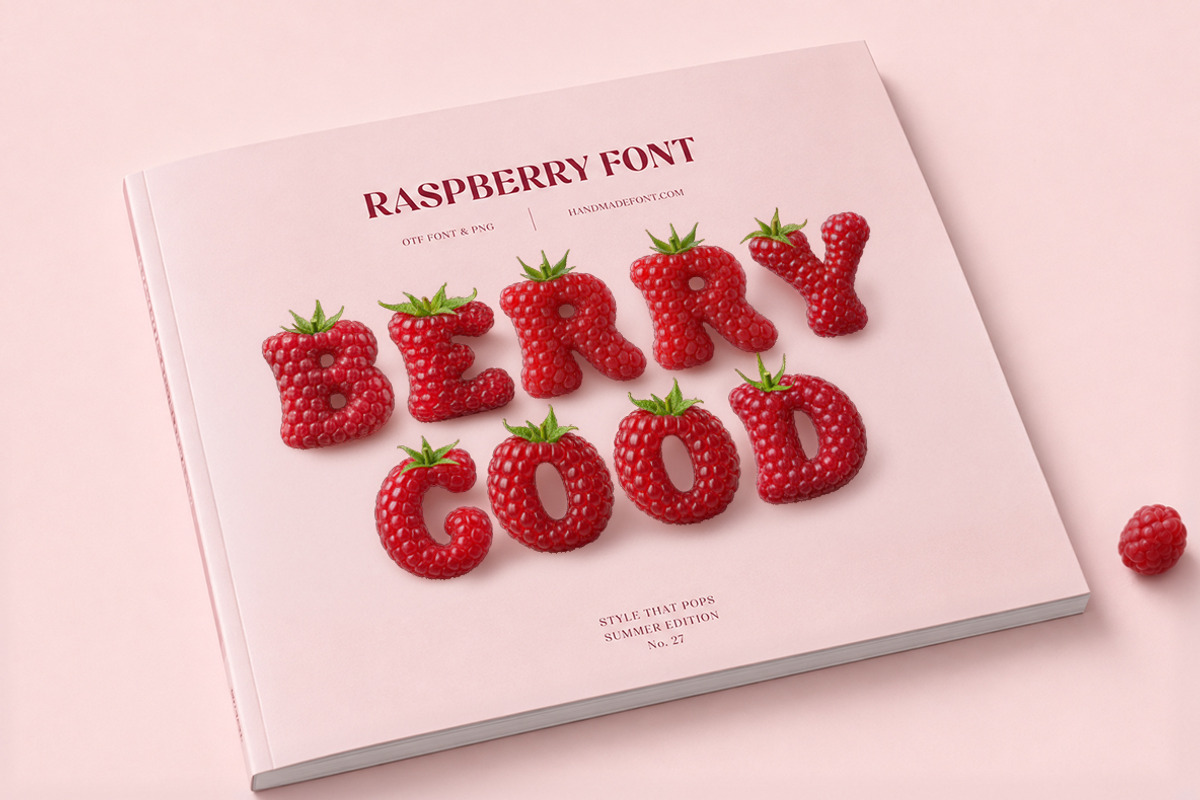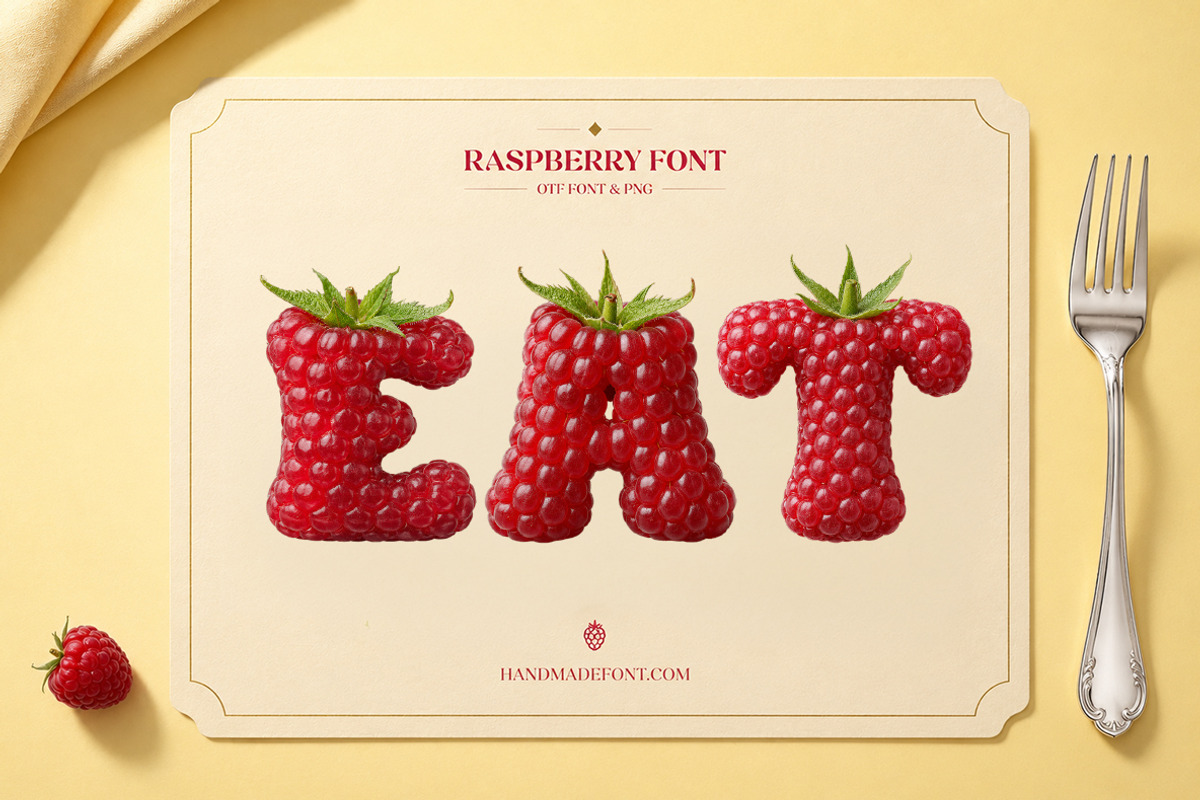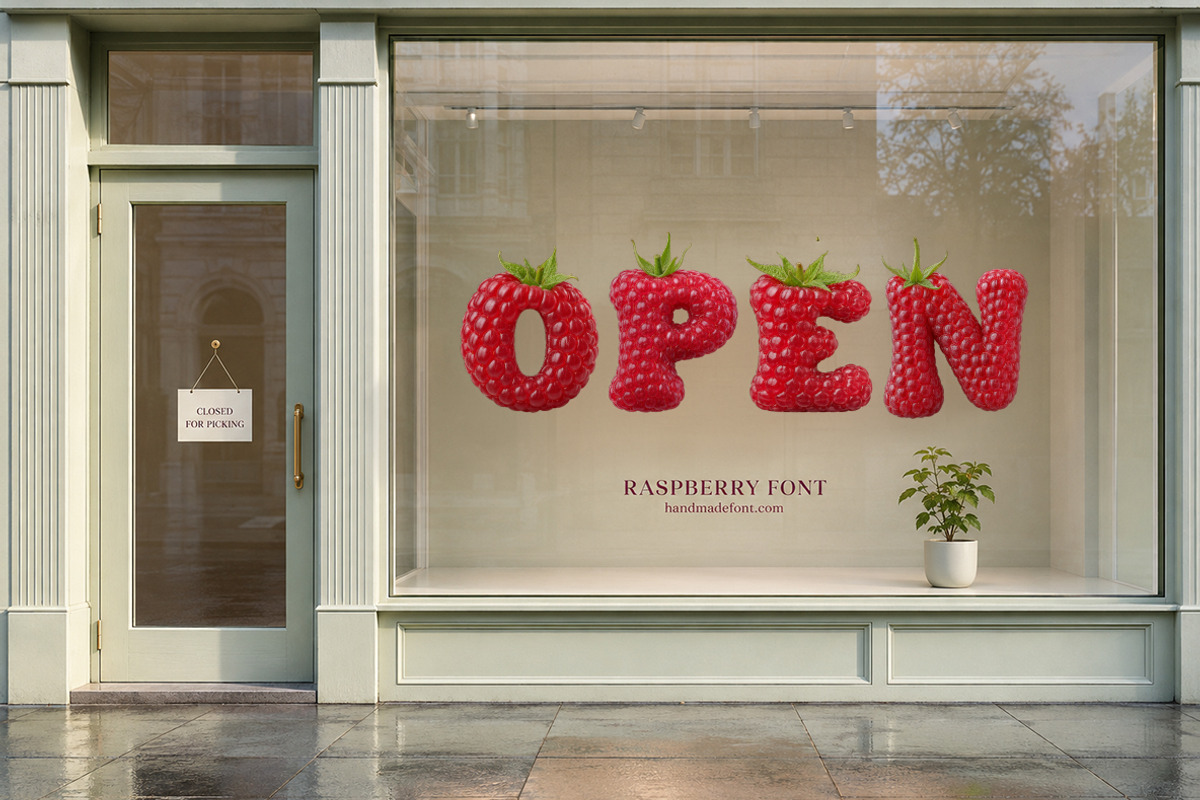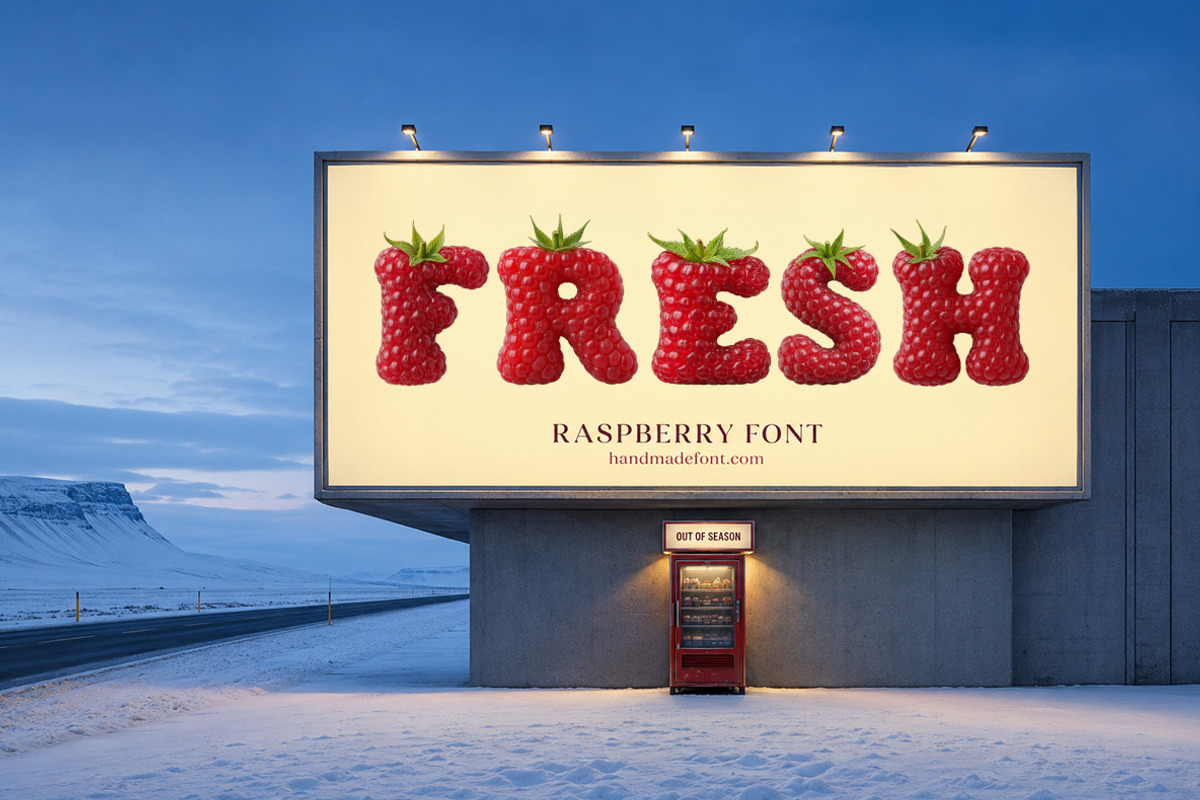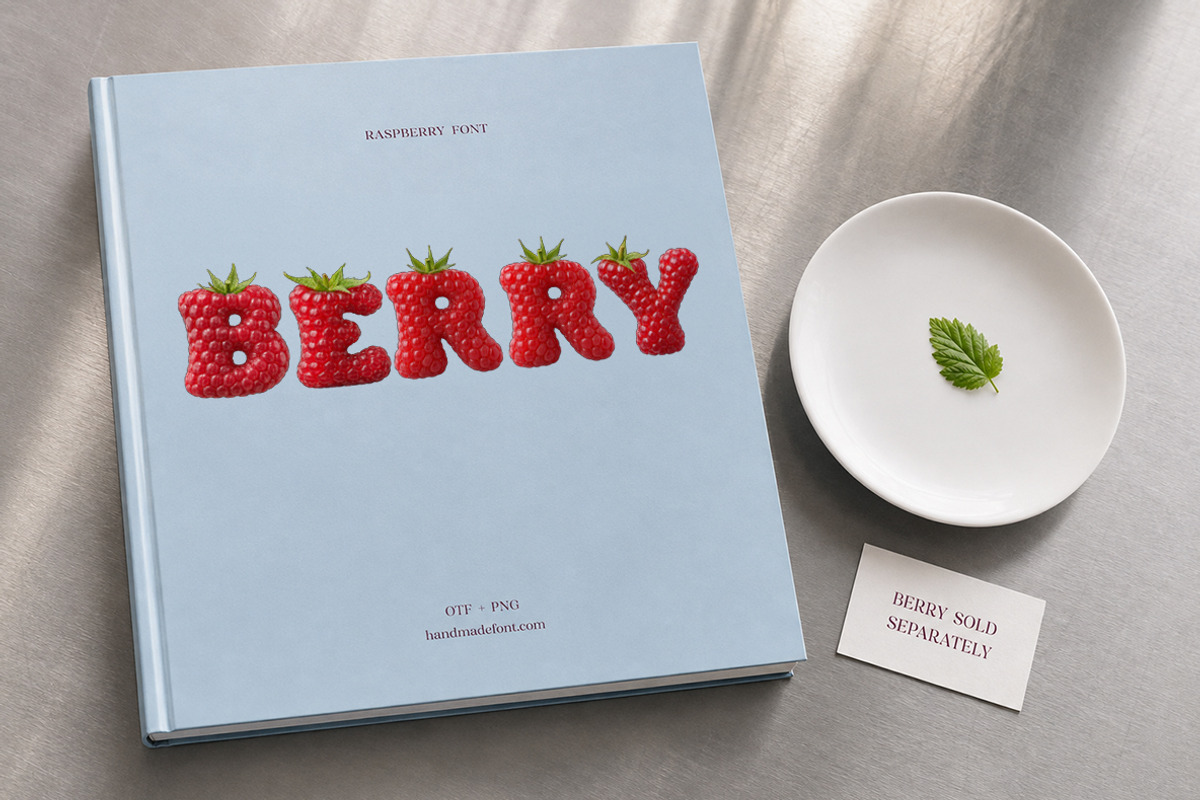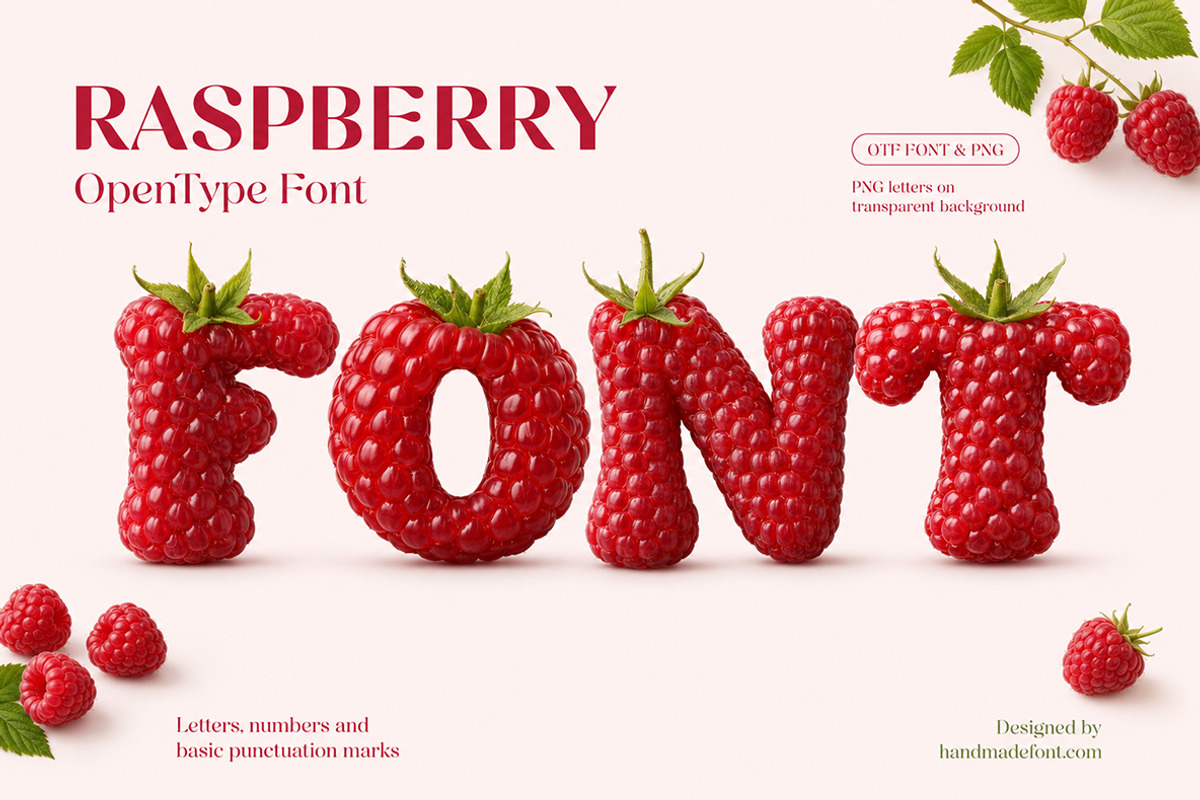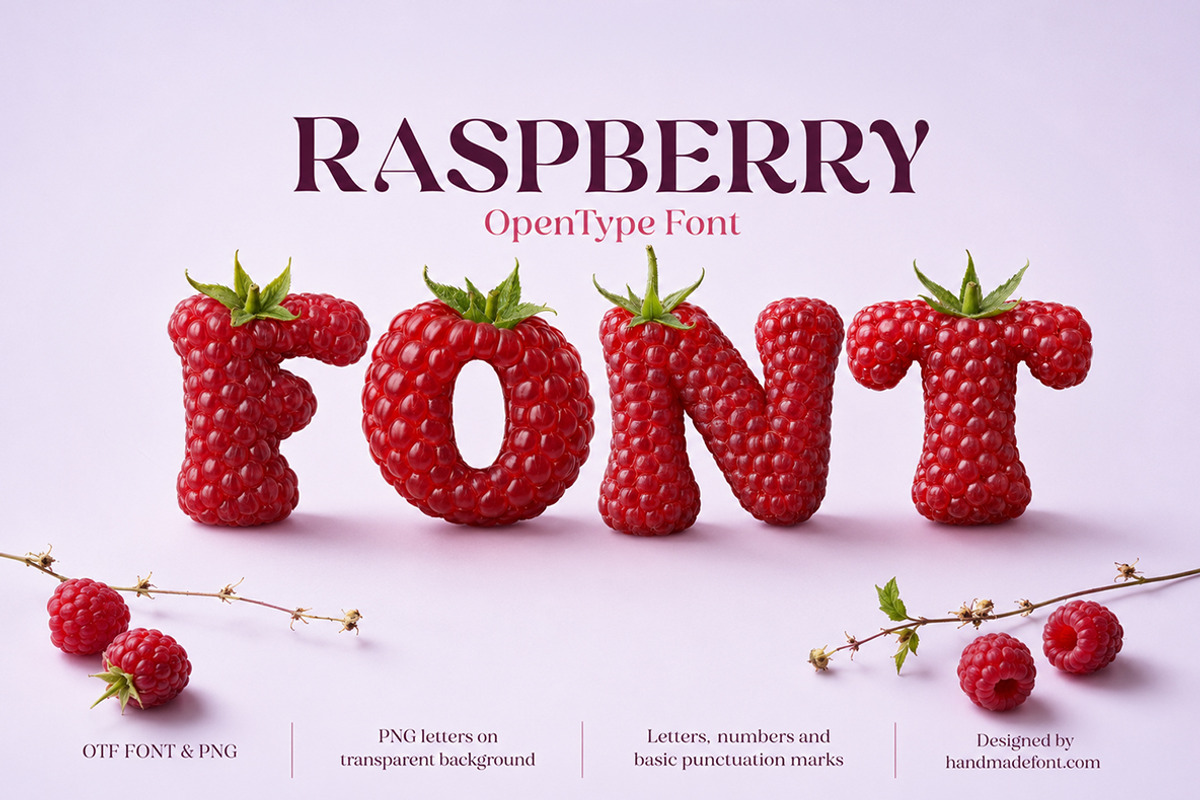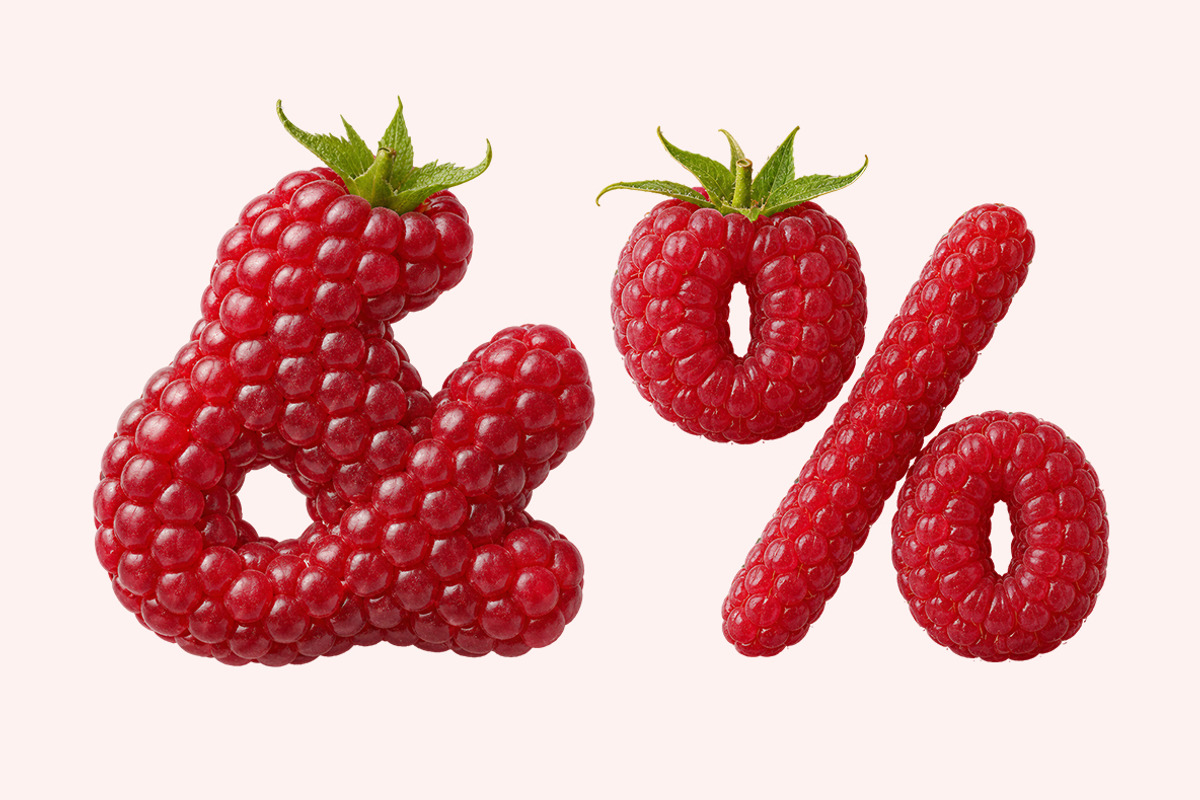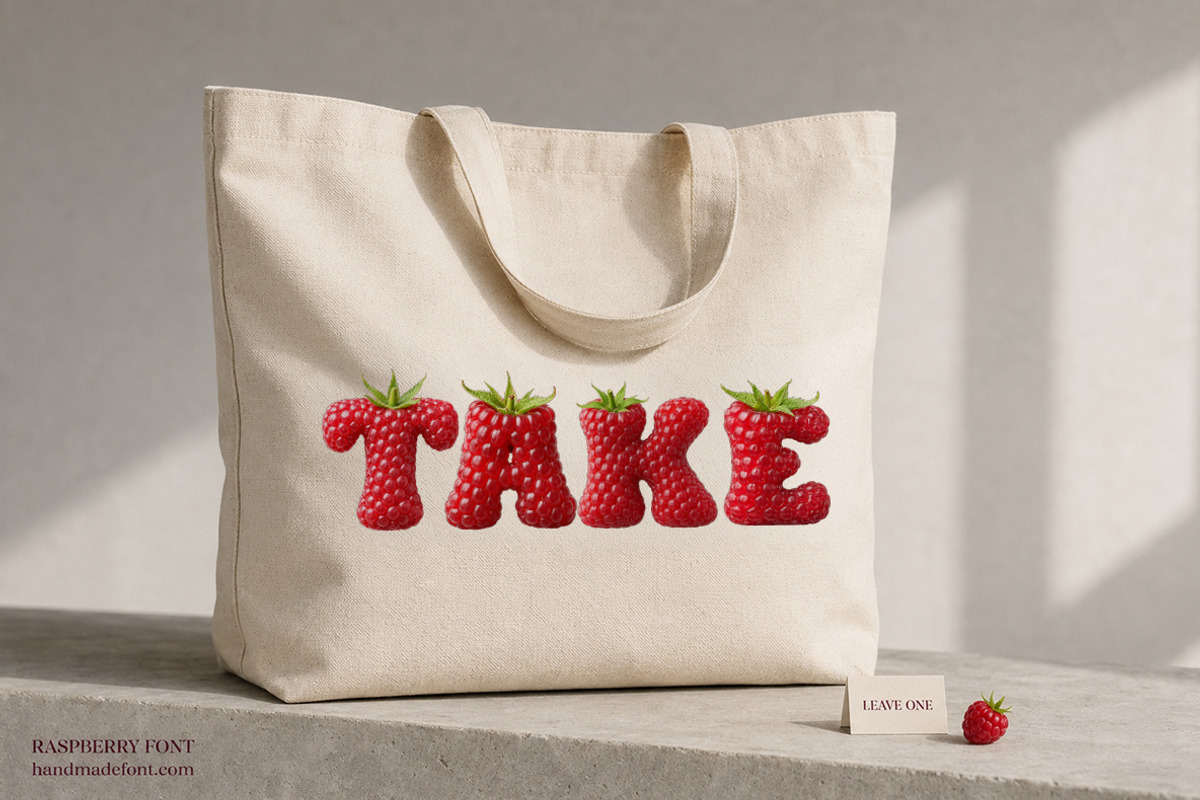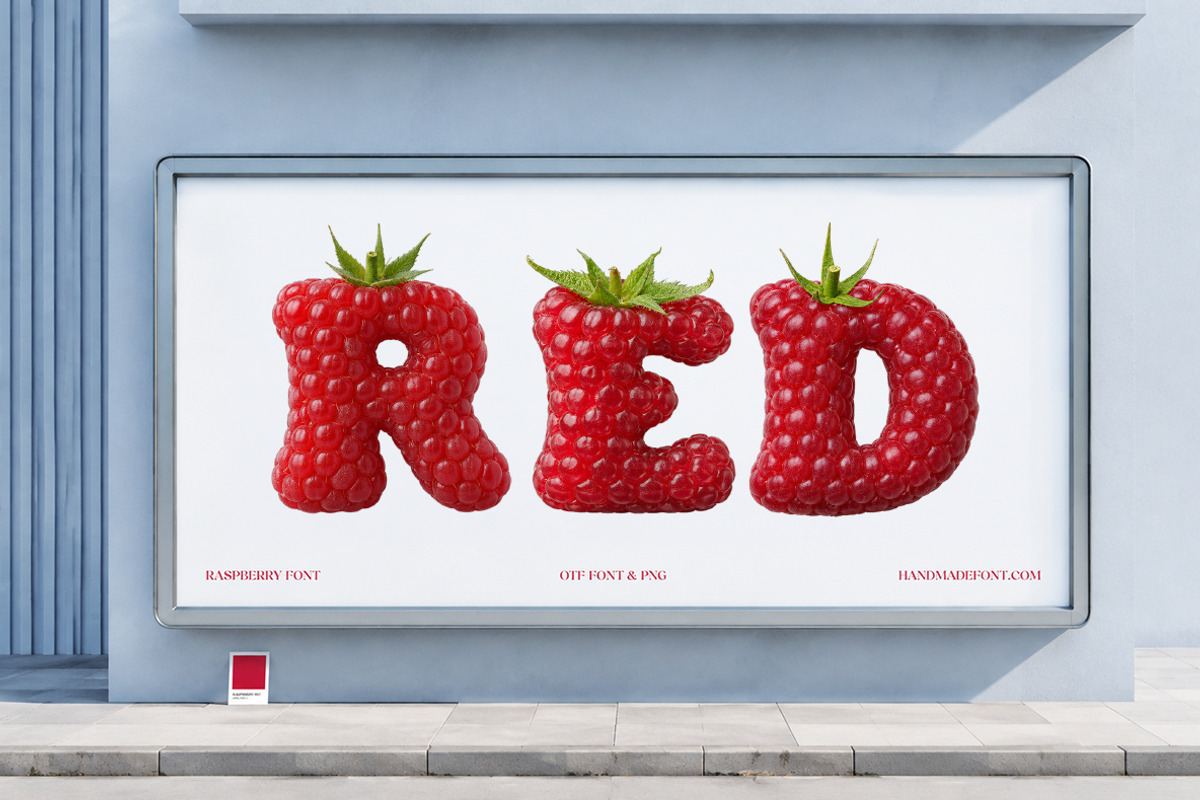
Raspberry Font
Raspberry Font is a vibrant display typeface inspired by the rich texture and irresistible charm of fresh berries. Each character appears sculpted from glossy red raspberries, finished with delicate green leaves for a playful, tactile look. Use it to create memorable packaging, food labels, posters, menus, children’s projects, seasonal campaigns, or expressive social media graphics. The set includes uppercase and lowercase letters, numbers, and essential punctuation in OTF format for simple installation and everyday use. Every character is also supplied as an individual high-resolution PNG with a transparent background, making it easy to build compositions, logos, illustrations, and brand stories.